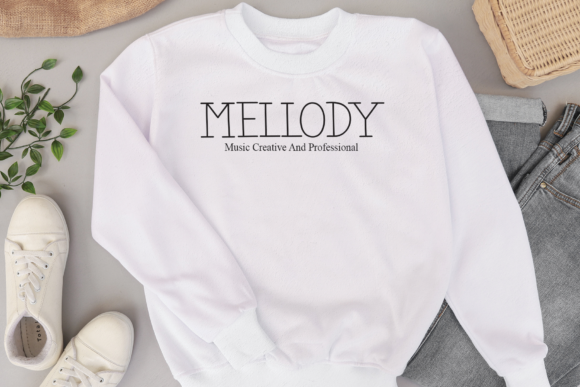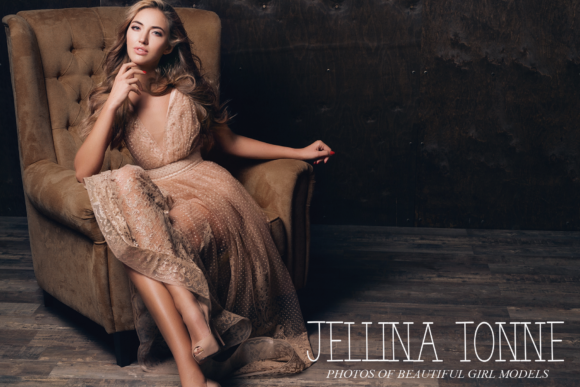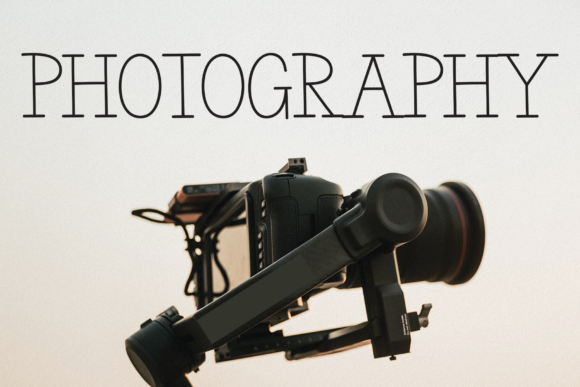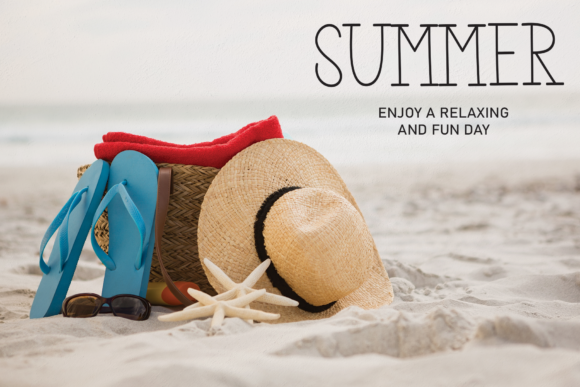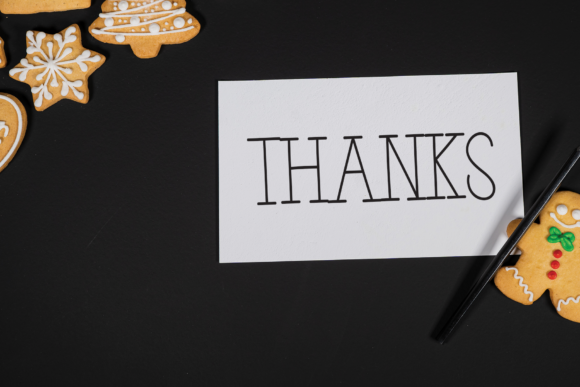
Coffee Font: Elevate Your Designs with a Dainty and Versatile Serif Font
Are you a designer or crafter looking for a font that can add a touch of elegance and sophistication to your creations? Look no further than the Coffee Font, a thin lettered, dainty, and tall serif font that is sure to become a valuable asset in your font library.
What is Coffee Font?
Coffee Font is a unique and versatile serif font that is characterized by its thin letters, delicate lines, and tall stature. Its dainty and elegant appearance makes it perfect for designs that require a touch of refinement and sophistication. Whether you’re working on a branding project, a craft project, or a digital design, Coffee Font is sure to enhance your creation and make it stand out.
Key Features of Coffee Font
- Thin lettered: Coffee Font features thin letters that are perfect for creating elegant and refined designs.
- Dainty and tall: The font’s dainty and tall stature makes it perfect for headlines, titles, and other design elements that require a touch of sophistication.
- Serif font: Coffee Font is a serif font, which means it features small lines or flourishes at the ends of the letters. This gives the font a classic and timeless look.
- Versatile: Coffee Font can be used for a wide range of design projects, from branding and advertising to crafting and digital design.
Why Use Coffee Font?
There are many reasons why Coffee Font is a great addition to any font library. Here are just a few:
- Elegance: Coffee Font adds a touch of elegance and sophistication to any design. Its thin letters and dainty lines create a refined and polished look that is sure to impress.
- Versatility: Coffee Font can be used for a wide range of design projects, from formal and professional to casual and creative.
- Legibility: Despite its thin letters, Coffee Font is highly legible, even at small sizes. This makes it perfect for designs that require a lot of text, such as articles and blog posts.
- Uniqueness: Coffee Font is a unique and distinctive font that is sure to set your designs apart from the crowd.
How to Use Coffee Font
Coffee Font is easy to use and can be incorporated into a wide range of design projects. Here are a few ideas to get you started:
- Branding: Use Coffee Font to create elegant and sophisticated branding materials, such as logos, business cards, and letterheads.
- Advertising: Coffee Font is perfect for advertising designs, such as print ads, flyers, and brochures.
- Crafting: Coffee Font can be used for a wide range of craft projects, such as card making, scrapbooking, and journaling.
- Digital design: Coffee Font can be used for digital designs, such as website headers, social media graphics, and email newsletters.
Tips for Using Coffee Font
Here are a few tips for using Coffee Font effectively:
- Use it sparingly: Coffee Font is a elegant and sophisticated font, so use it sparingly to avoid overwhelming your design.
- Pair it with other fonts: Coffee Font can be paired with other fonts to create a unique and interesting look.
- Experiment with sizes: Coffee Font can be used at a wide range of sizes, from small and delicate to large and bold.
In conclusion, Coffee Font is a versatile and elegant serif font that is sure to become a valuable asset in your font library. Its thin letters, dainty lines, and tall stature make it perfect for a wide range of design projects, from branding and advertising to crafting and digital design. With its ease of use and flexibility, Coffee Font is a great choice for designers and crafters looking to add a touch of sophistication and elegance to their creations.